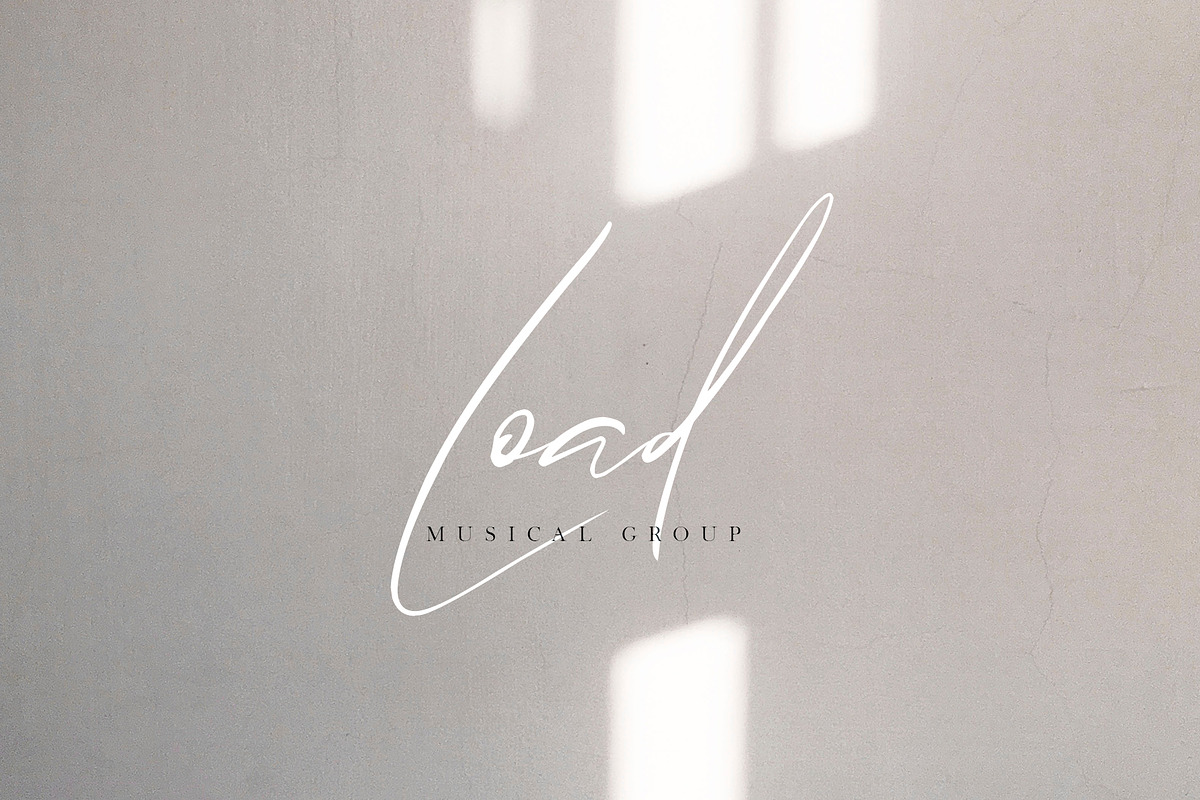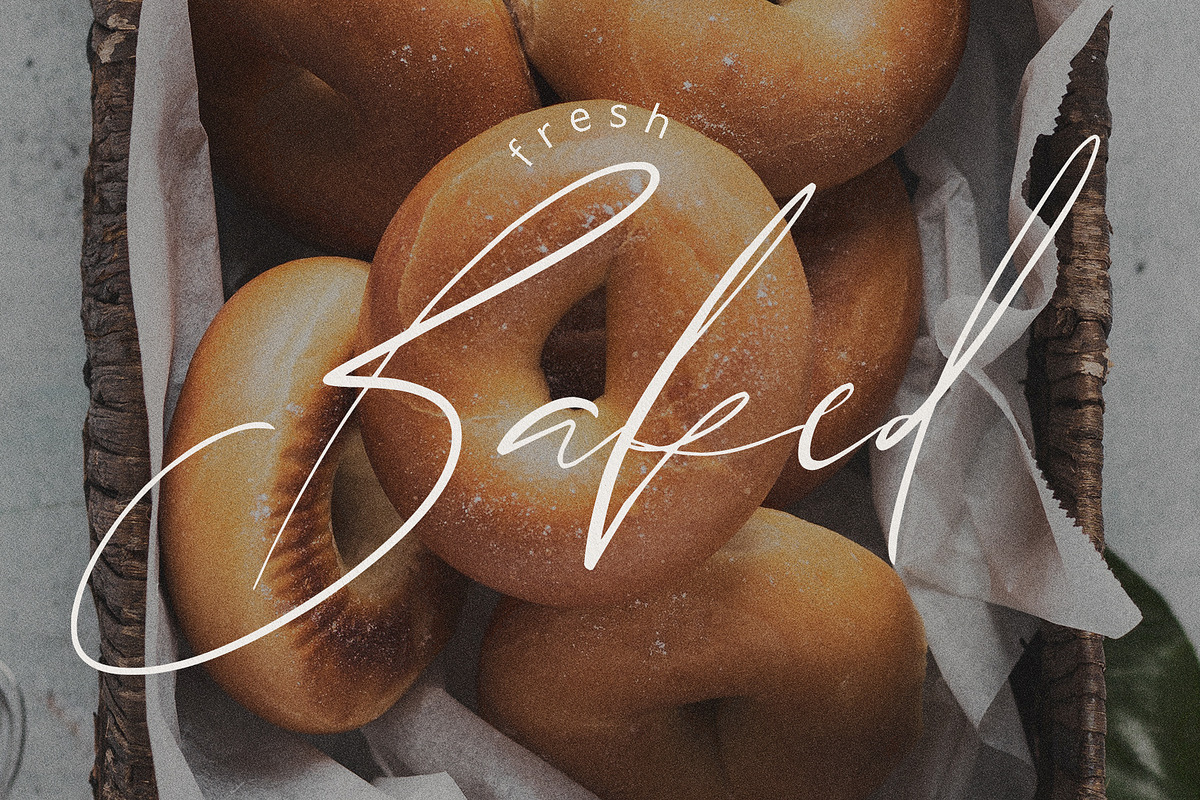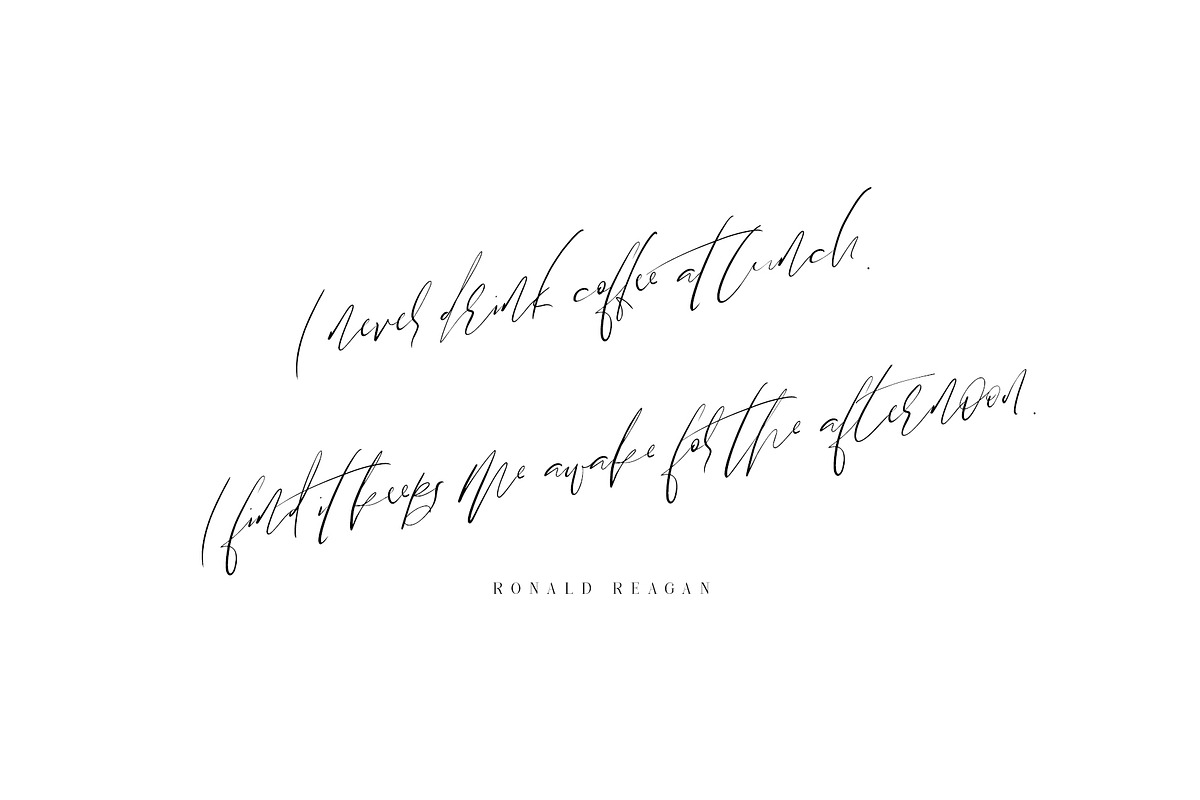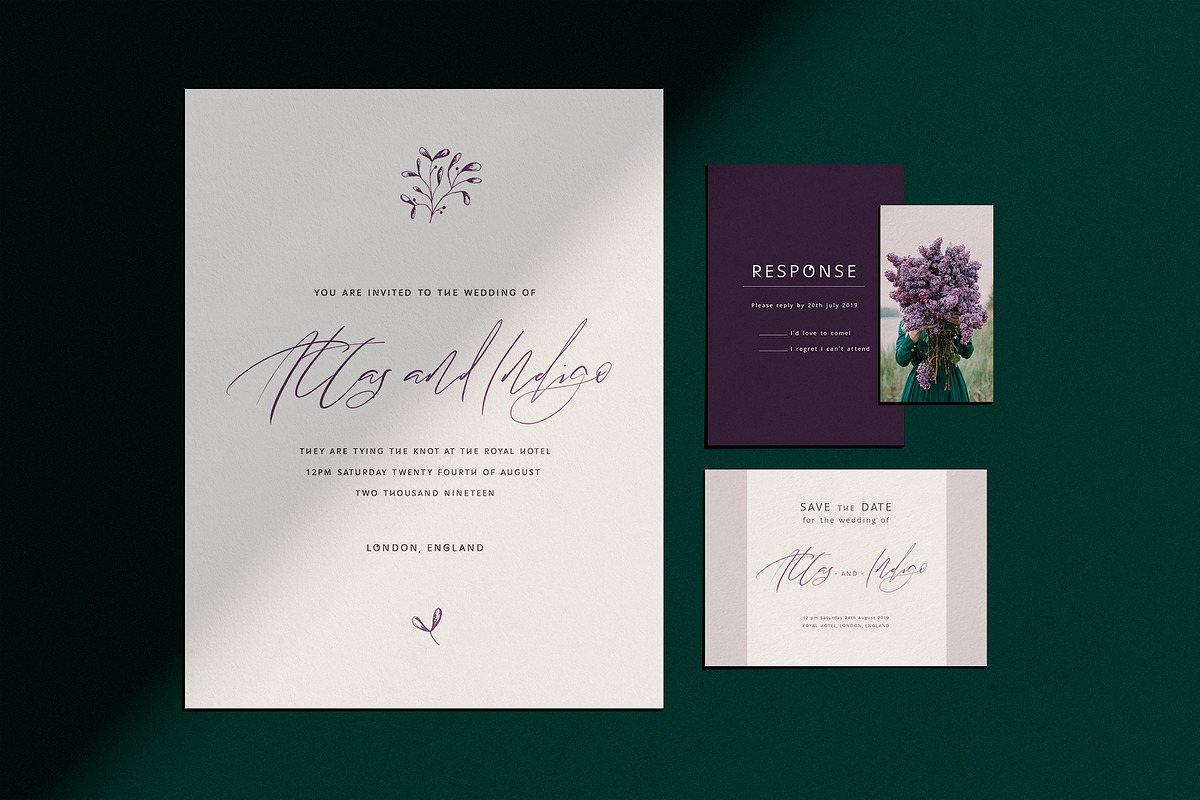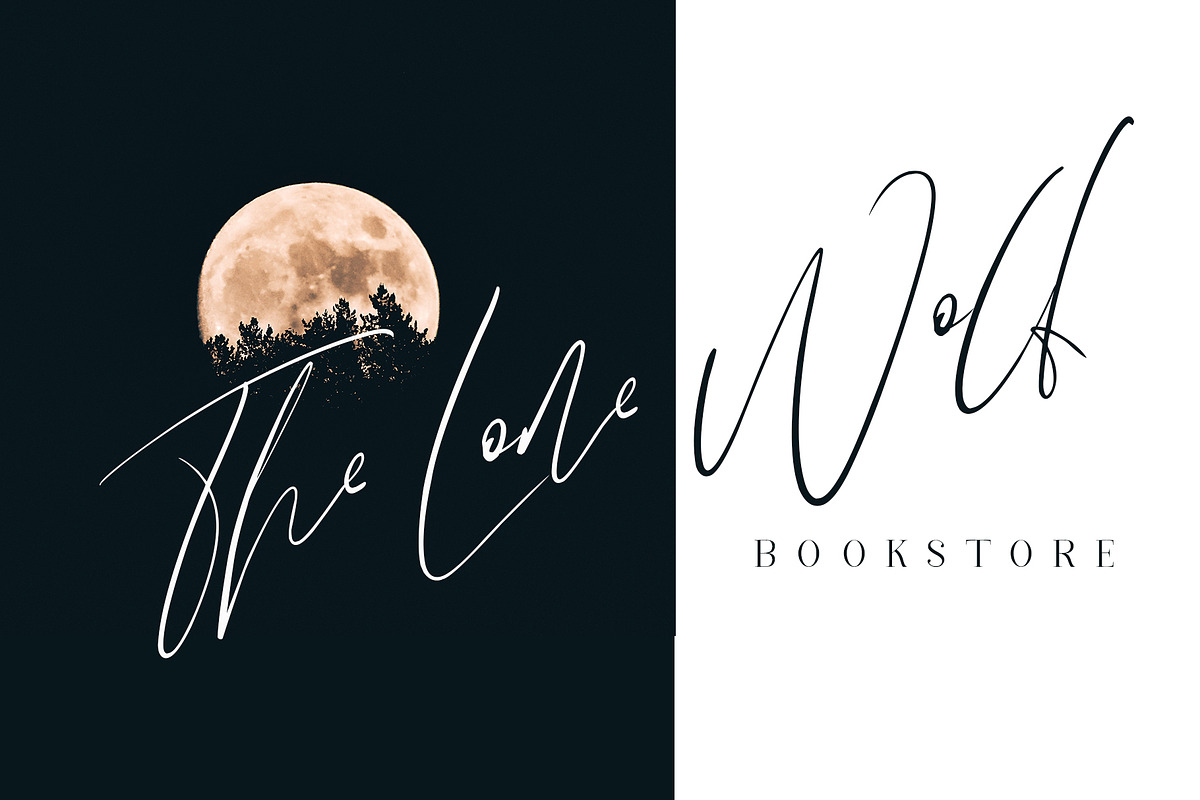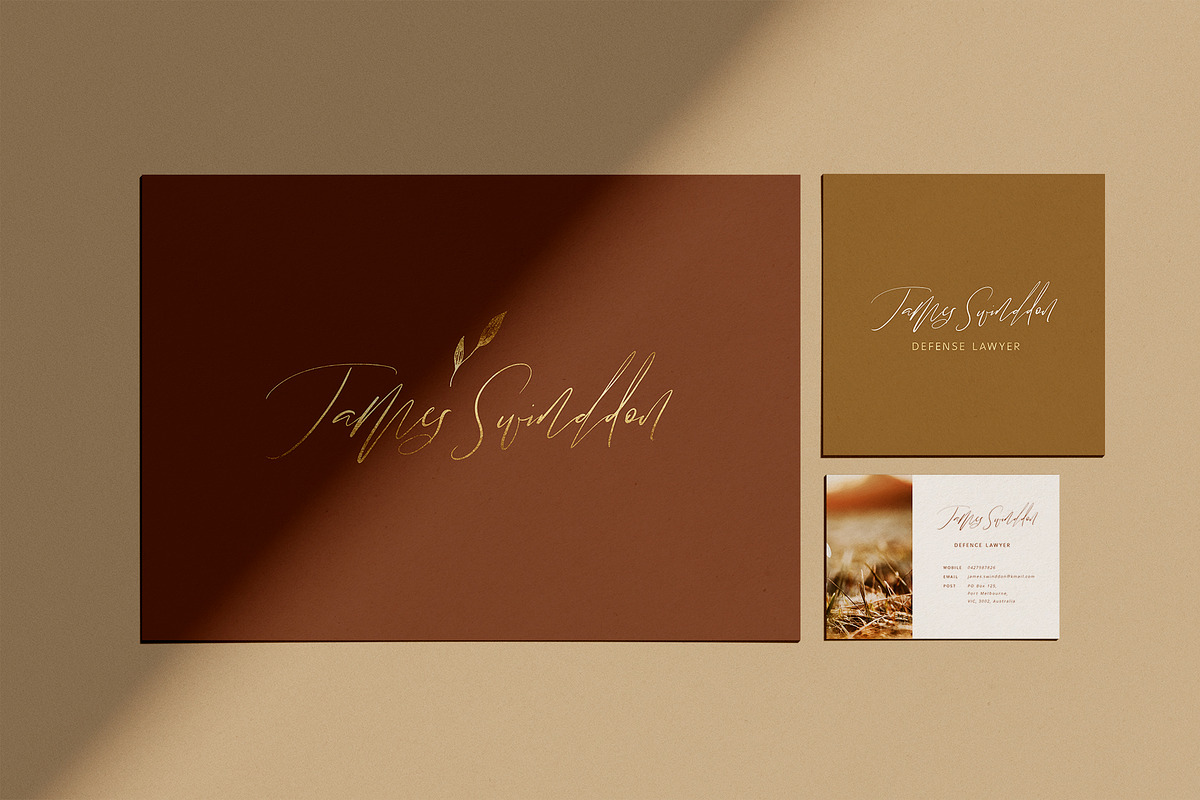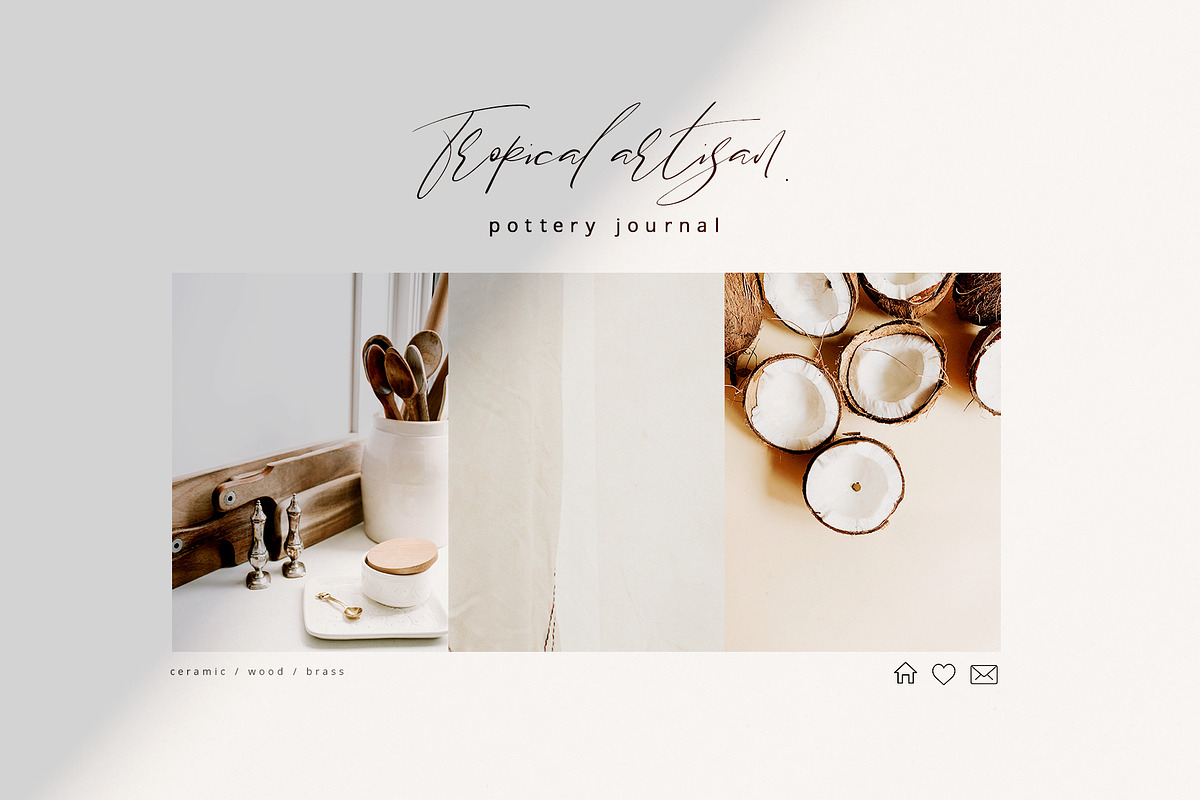
Oakwood Beach Script Font
Introducing a new signature style scrip font - Oakwood Beach
This is a fun crazy hand written script, perfect for quotes, invites, weddings, posters, signs, branding, logos, planner stickers, and much more!
- Oakwood Beach includes a full set of lowercase alternates plus lots of ligatures to create that genuine hand written look!
Why Oakwood Beach Script Font is worth a look
Oakwood Beach Script Font by Creativeqube Design fits naturally into Branding, posters, packaging, typography.